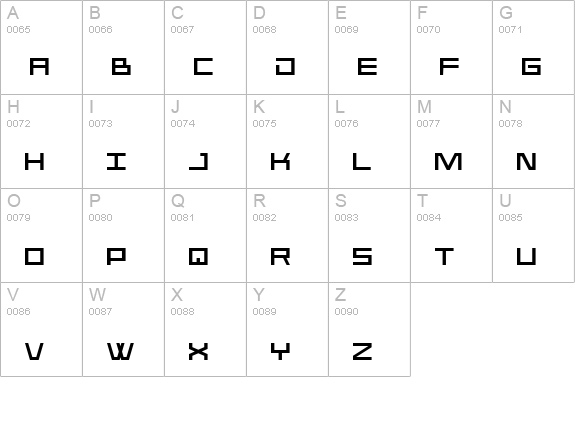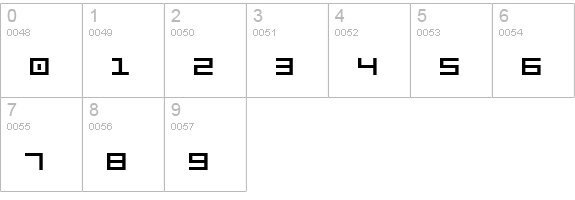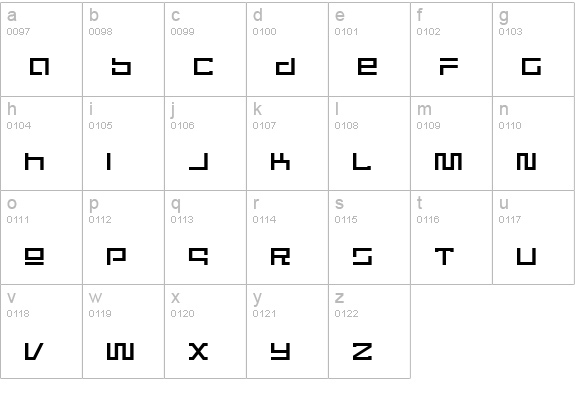
Introducing Wormbox Sharp, a captivating and versatile font that is sure to make your designs stand out from the crowd. With its sharp edges and unique angularity, this font exudes a modern and edgy vibe that is perfect for a wide range of design projects. Wormbox Sharp is not only visually striking, but it is also incredibly functional. Its sleek and clean lines make it highly legible, ensuring that your message comes across loud and clear. Whether you're creating eye-catching headlines, stylish logos, or impactful posters, this font will effortlessly add a touch of sophistication and professionalism to your work. But what sets Wormbox Sharp apart from other fonts on the market? The answer is simple – it's free! That's right, you can freely download this incredible font at FontsMarket.com. No need to break the bank or compromise on quality, Wormbox Sharp offers you the best of both worlds. Designed with attention to detail and a focus on versatility, Wormbox Sharp is available in multiple weights and styles, allowing you to find the perfect fit for any project. Its wide range of characters and glyphs ensure that you have all the tools you need to create stunning and visually engaging designs. So why wait? Enhance your design toolkit today with Wormbox Sharp. Download it for free at FontsMarket.com and unlock a world of possibilities for your creative endeavors. Don't miss out on this opportunity to elevate your design game and make a lasting impression with Wormbox Sharp.